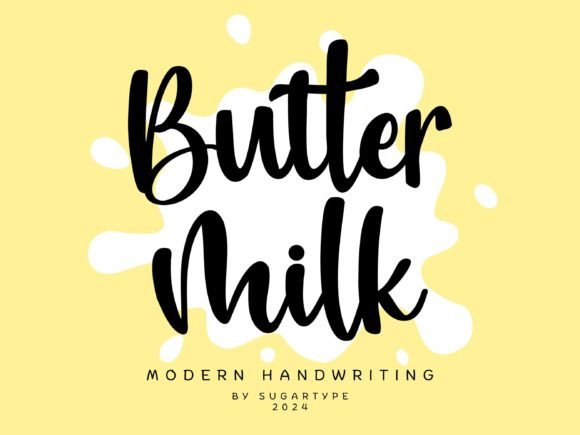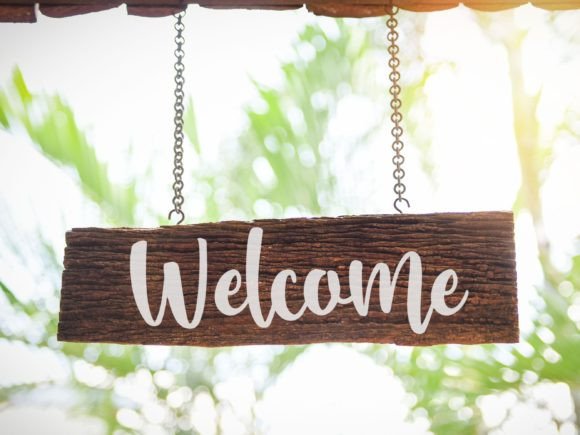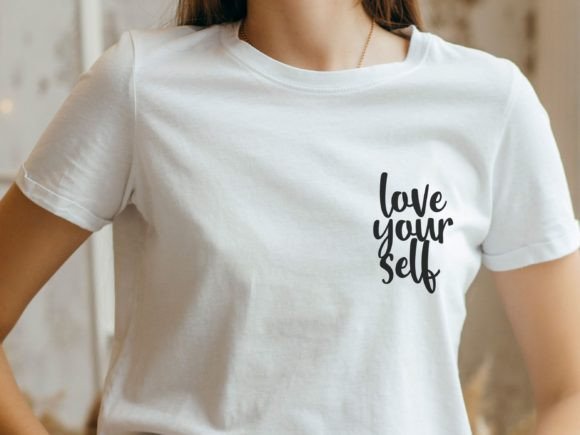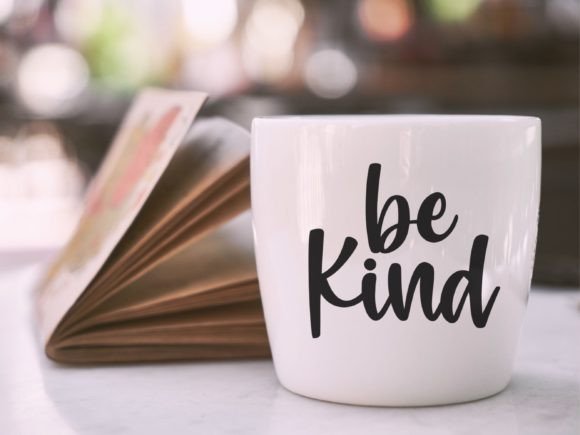
Butter Milk Font: Modern Handwritten Script for Cute DIY & Cricut Projects
About the Butter Milk Font
The wait is over! The incredible Butter Milk Font is now available for your design toolkit. Butter Milk is a Modern Handwriting Script. Its natural style will make your design authentic. if you need a soft but bold and fun font for your projects, this one is perfect. Butter Milk also can be typeface script. it’s suitable for invitation cards, flyers, posters, PODs, branding, etc.
Butter Milk’s bold yet soft character makes it ideal for headlines, logos, short-form content, and packaging where a friendly, approachable feel is desired. It works exceptionally well for branding projects targeting a younger demographic or those emphasizing handcrafted quality. However, its less-structured nature makes it unsuitable for body text or UI elements requiring high readability.
Consider pairing Butter Milk with a clean sans-serif like Open Sans for a modern contrast, or a classic serif such as Garamond for a more traditional feel. For a playful aesthetic, a geometric sans-serif like Futura could create a visually interesting juxtaposition. Avoid pairing it with other script fonts, which would create visual clutter and reduce legibility.
Its overall personality is best described as friendly, approachable, and slightly playful, conveying a sense of authenticity and handcrafted charm.
Butter Milk Font Usage Examples
Butter Milk Font Example